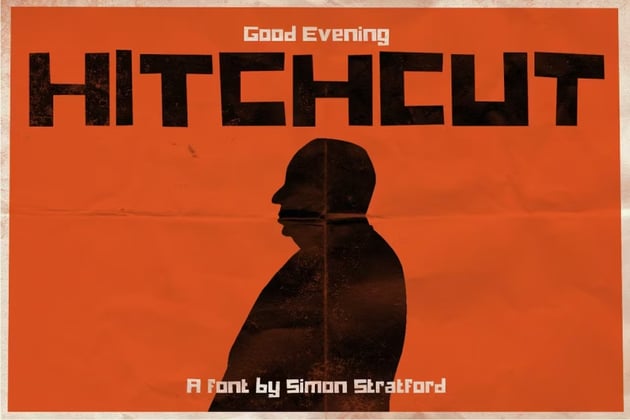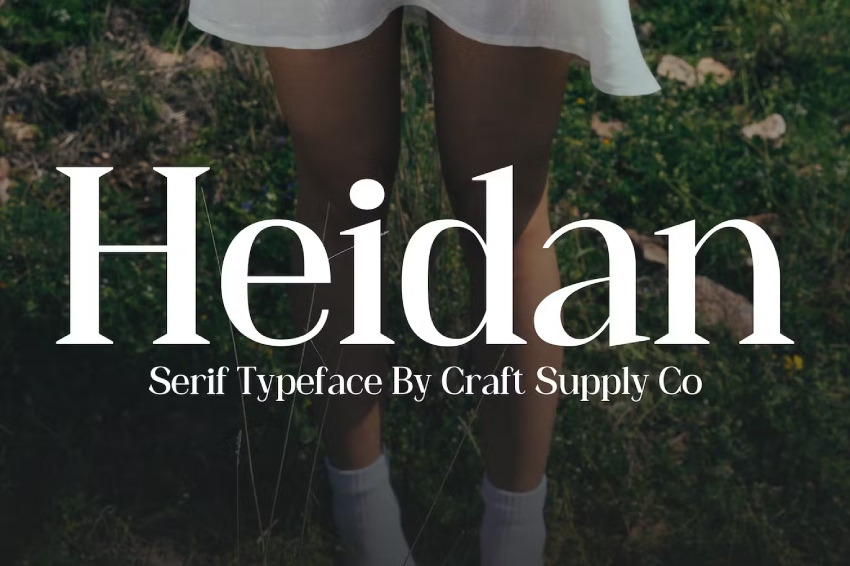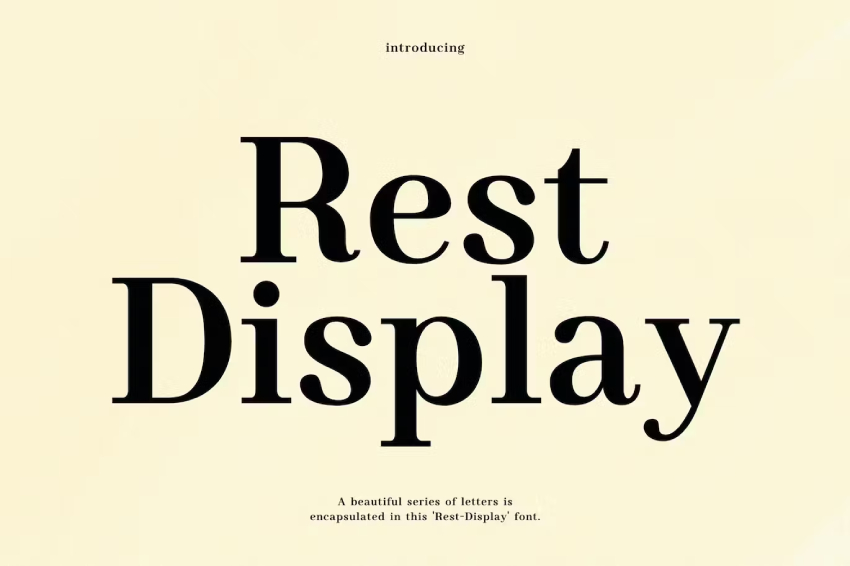
The Best Fonts for Magazine Designs (& Famous Typefaces for Magazines!)
If you need the best magazine font for your next editorial design project, you can look through the list below. In this post, we've gathered everything related to editorial fonts and typefaces for magazines. From magazine cover fonts to magazine text fonts, and fonts for different industries, you can learn all about typography for editorial design.
When it comes to editorial design, choosing the best magazine fonts can be a challenge. They can make or break the interest of your readership. This post is here to help you out. Plus, if you've ever wondered what editorial font a magazine uses, we've included some of the most renowned magazine fonts out there.
Best Fonts for Magazine Design
If you’ve ever worked in editorial design, you have probably struggled with finding magazine typography that's clear and portrays the right mood.
First and foremost, consider the brand personality of the magazine as a whole. Every font has a personality, and that's a big part of brand design. Make sure that the font you choose resonates with what the brand and magazine stand for.
Communication is the purpose of typography. The right font will speak to your readership, so choose a font that will connect with them at an emotional level. Consider the context and how the font will function.
Make sure the first boxes you check off are readability and legibility. Try not to sacrifice functionality for the looks of the magazine. Every font has a purpose—it's just a matter of finding the perfect one for the project.
Tips for Choosing Fonts for Magazine Design
There are many factors involved when it comes to choosing the right magazine typography. We've put together some tips to consider when you're in the process of selecting fonts for magazines:
- Font style: consider the emotional attributes embedded in a font and how they relate to your readership. Consider the brand itself and how you’ll be using the font of choice.
- Font combinations: Find the perfect pairing of a serif font and a sans serif. This combo will create a nice texture on the page and hierarchy to set apart different sections of the magazine.
- Create contrast: Choose fonts that are different enough to create a strong contrast. This will help guide the reader through the magazine.
- Create emphasis: If you’re working on a big publication with main stories, choose different display fonts that go with the theme of the content. This will help set the story apart from the rest of the magazine.
- Legibility and readability: the top priority for body copy is that it’s read with clarity. Choose fonts that are easy and enjoyable to read. Try not to get too experimental with the arrangement when it comes to kerning and tracking.
- Test your design: It's always good to test your font choices before using them. Use them on a fictional layout and print a spread to see how comfortably you can read the copy text. For instance, as a rule of thumb, the font size for an A5 magazine is between 9 and 11 points. This should be a good starting point.
Best Magazine Fonts for Sports Publications
Rockster Casual Sans (TTF, OTF)
The Thrasher magazine font is one of the most iconic in the world of skateboarding. Rockster is a great dupe for this magazine letter font—while it isn't exactly the same, it evokes the same feeling. This casual sans serif has that handwritten and laid-back vibe.
Uniclo (OTF, TTF)
Sports magazines are all about being dynamic. Uniclo is a great font that just looks amazing in its italic form. This is one of the best fonts for magazine covers because the font is chunky and substantial. This is a great font if you are looking to create some impact on newsstands!
Forever Freedom (OTF, TTF)
Tall fonts have a way of looking super dynamic and fast, especially if they are in italics. This modern and striking magazine font is great for a magazine cover or to use as a headline in a story. It evokes speed and is sure to captivate your audience.